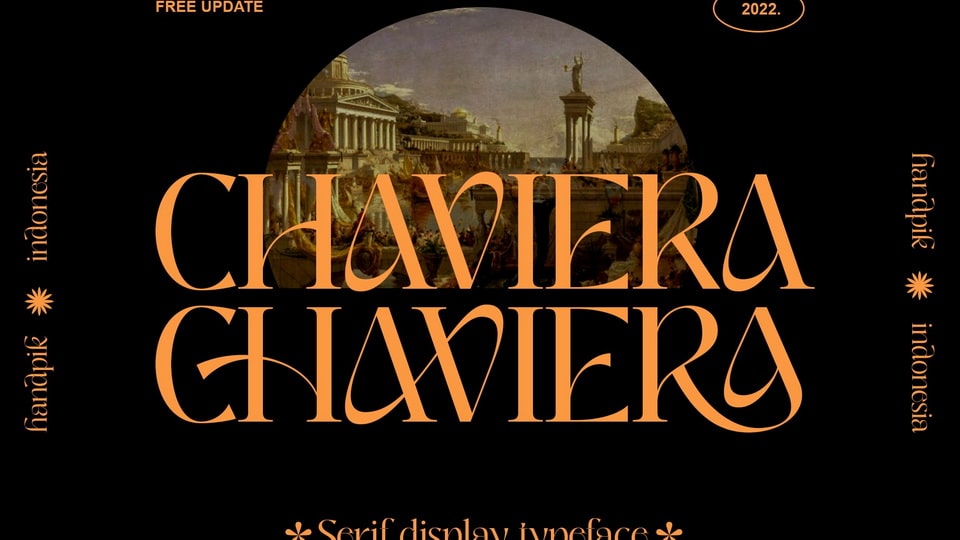
Download Chaviera font, a beautiful and refined serif font with classic, feminine and elegant style. Chaviera font has a classy, elegant, and modern look that can be used for logos, branding, invitations, stationery, wedding designs, social media posts, and much more.